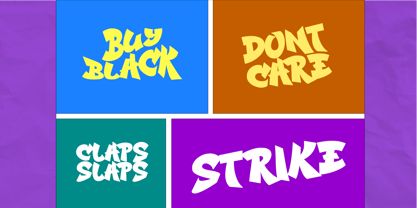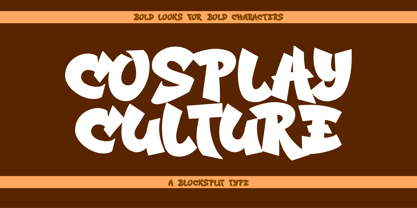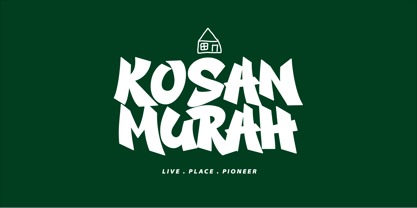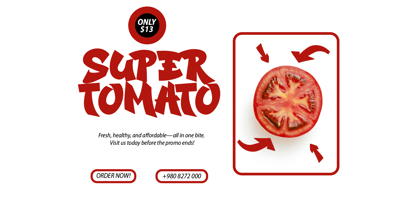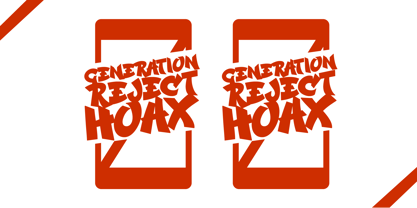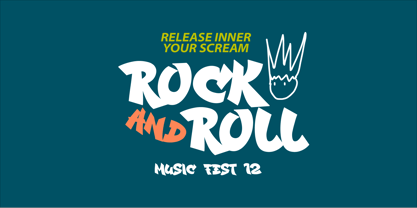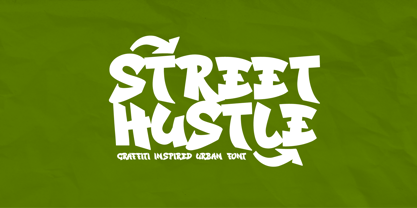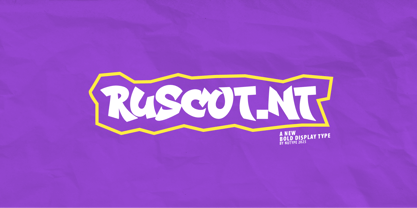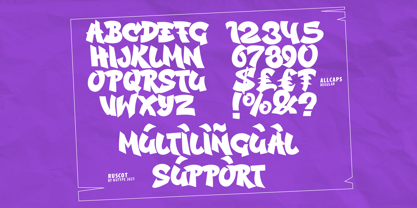
Ruscot
Introducing Ruscot, a bold display typeface designed to make a statement. With its strong, confident letterforms and high-impact style, this font is perfect for headlines, posters, branding, advertising, and any creative project that demands attention. Ruscot adds an instant dose of power and personality to your typography.
✦ FEATURES:
• Uppercase
• Numbers & punctuation
• Multilingual support
• Smooth curves & sharp lines
✦ PERFECT FOR: